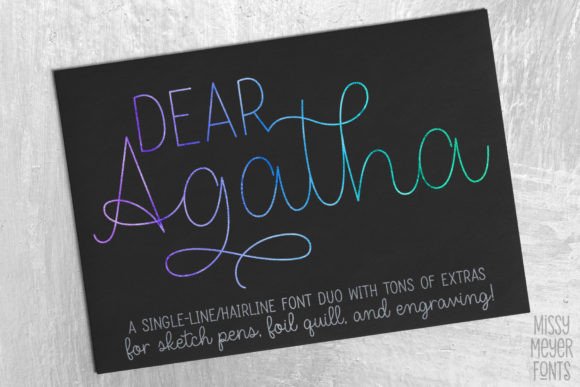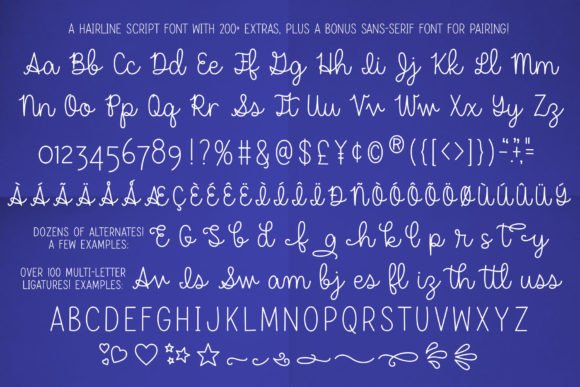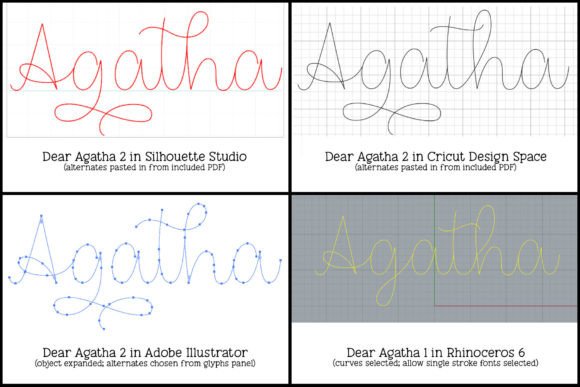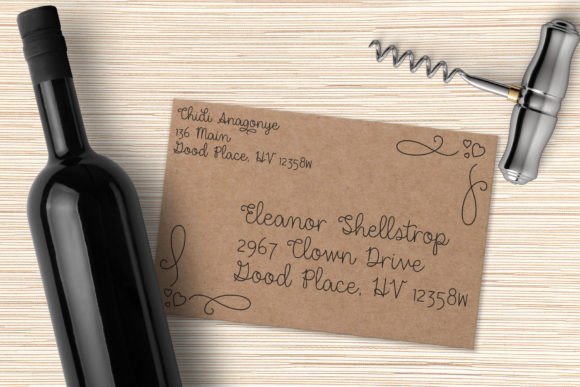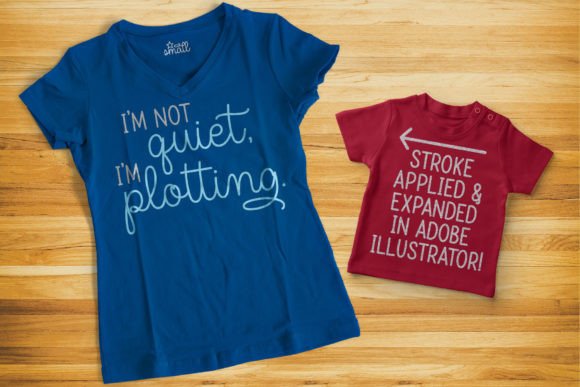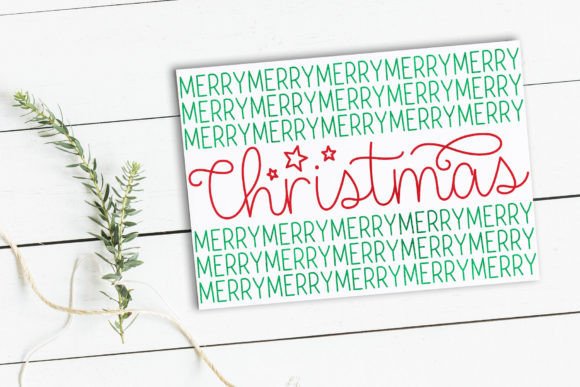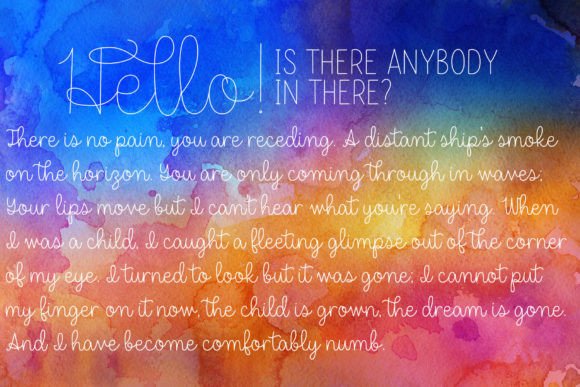
Dear Agatha (single Line) Font
Hello there, meet Dear Agatha, a delightful font duo featuring a connecting script font and an all-caps sans-serif, crafted specifically for single-line and hairline applications. These fonts are not your typical ones—they’re designed for sketch pens, foil quills, engraving tools, infusible ink pens, or any stylus that draws letters with a single line rather than an outline. The duo includes both a single-line version and a hairline version, ensuring compatibility with various design programs.
Here’s what Dear Agatha brings to the table:
1. **Dear Agatha Script:**
– A connecting script font with over 200 alternates, ligatures, and extras for added variety.
– Full Basic Latin and Latin-1 character sets, offering comprehensive punctuation and accented letters for language support.
– OpenType coding and PUA encoding for easy access in a wide range of programs.
2. **Dear Agatha Sans:**
– A perfectly paired sans-serif font with a full Basic Latin and Latin-1 character sets for enhanced versatility.
– OpenType coding and PUA encoding for seamless integration into various design programs.